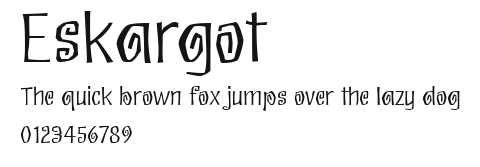
• Font Name: Eskargot
• Designer: Graham Meade & Apostrophe
About Eskargot.ttf
Eskargot.ttf is a modern, elegant sans-serif font designed for ultimate readability and visual harmony. Perfect for branding, headlines, web design, and print materials.